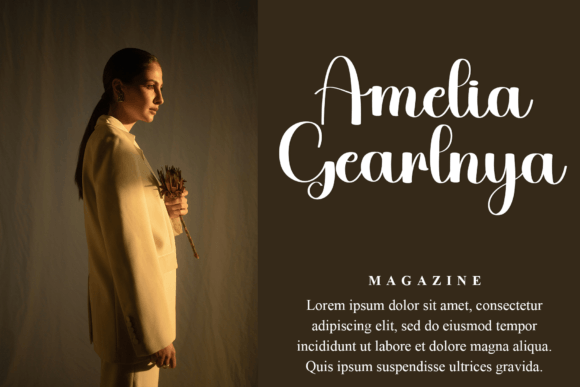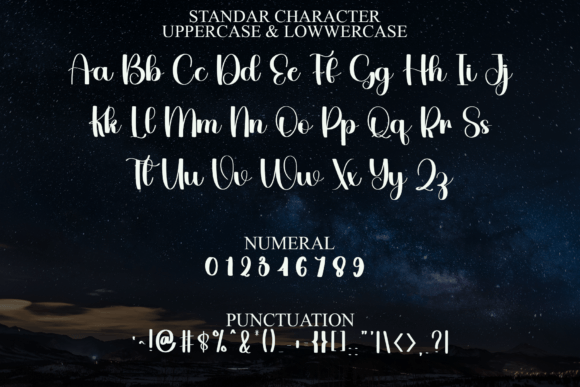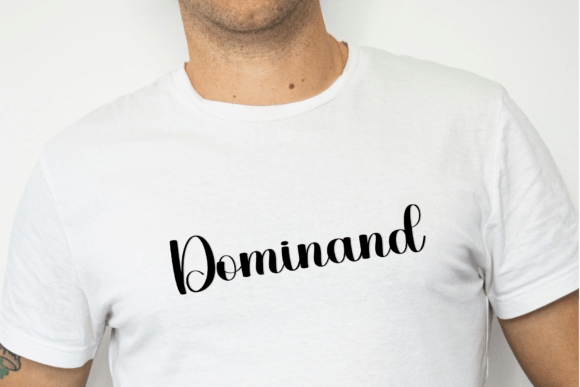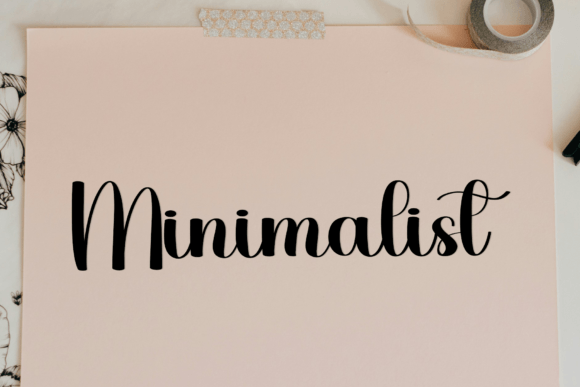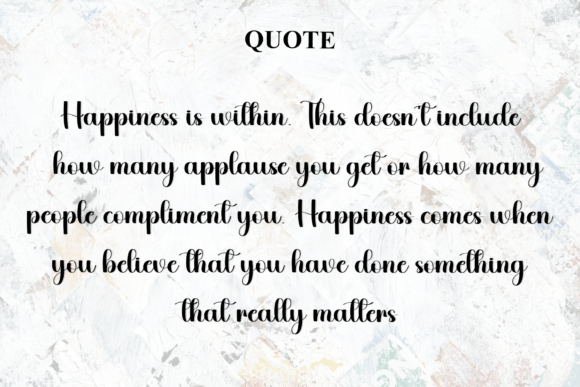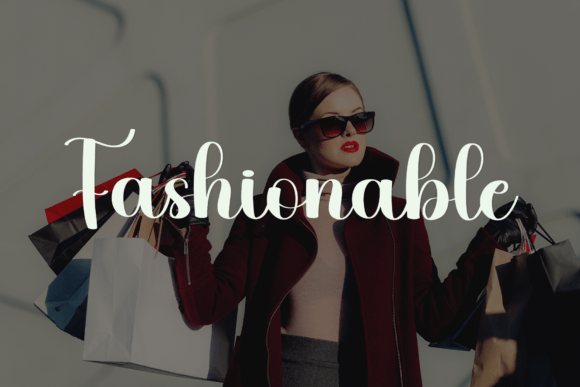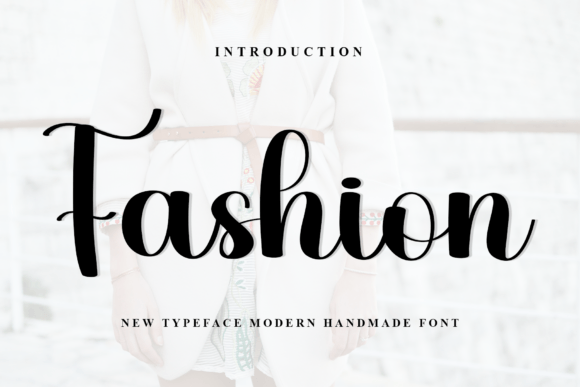
Fashion Font: Elevate Your Designs with Elegance and Sophistication
Are you a designer or crafter looking for the perfect font to add a touch of luxury and sophistication to your projects? Look no further than Fashion Font, a stunning handwritten font that is sure to become your new favorite. With its classy calligraphic influences and contemporary feel, Fashion Font is the perfect choice for anyone looking to elevate their designs and bring them to the highest levels.
The Story Behind Fashion Font
Fashion Font is a meticulously crafted font that has been designed to exude elegance and refinement. Its creator has masterfully blended traditional calligraphic techniques with modern design principles to create a truly unique and versatile font. The result is a font that is both timeless and trendy, making it perfect for a wide range of design applications.
Key Features of Fashion Font
- Handwritten with love: Fashion Font is a handwritten font that has been carefully crafted to convey a sense of personality and warmth.
- Classy calligraphic influences: The font’s calligraphic roots give it a sophisticated and refined feel that is perfect for high-end designs.
- Contemporary and fresh: Despite its classic influences, Fashion Font feels modern and fresh, making it perfect for designers who want to create something new and exciting.
- Versatile: Fashion Font can be used for a wide range of design applications, from branding and packaging to wedding invitations and social media graphics.
Why Designers and Crafters Love Fashion Font
So, why do designers and crafters love Fashion Font? For starters, its elegant and refined feel makes it perfect for creating high-end designs that are sure to impress. Additionally, its versatility means that it can be used for a wide range of projects, from luxury branding to DIY crafts. Whether you’re a professional designer or a crafty hobbyist, Fashion Font is sure to become a staple in your design toolkit.
How to Use Fashion Font in Your Designs
Using Fashion Font in your designs is easy. Here are a few tips to get you started:
- Pair it with bold typography: Fashion Font looks stunning when paired with bold, modern typography. Try pairing it with a geometric sans-serif font for a striking contrast.
- Use it for headlines and titles: Fashion Font is perfect for headlines and titles, where its elegant and refined feel can really shine.
- Add some flair with swashes: Fashion Font comes with a range of swashes and flourishes that can add an extra touch of elegance to your designs.
Tips and Tricks for Getting the Most Out of Fashion Font
Here are a few more tips and tricks for getting the most out of Fashion Font:
- Experiment with different colors: Fashion Font looks stunning in a range of colors, from rich jewel tones to soft pastels. Experiment with different colors to find the perfect fit for your design.
- Don’t be afraid to get creative: Fashion Font is a versatile font that can be used in a wide range of design applications. Don’t be afraid to get creative and try new things!
- Use it to create a cohesive brand identity: Fashion Font is perfect for creating a cohesive brand identity. Use it across all of your marketing materials to create a consistent and sophisticated look.
In conclusion, Fashion Font is a truly exquisite handwritten font that is sure to become a favorite among designers and crafters. With its classy calligraphic influences, contemporary feel, and versatility, it’s the perfect choice for anyone looking to elevate their designs and bring them to the highest levels. Whether you’re a professional designer or a crafty hobbyist, Fashion Font is sure to inspire and delight.